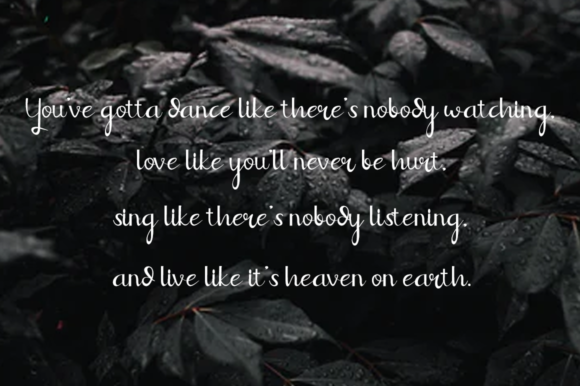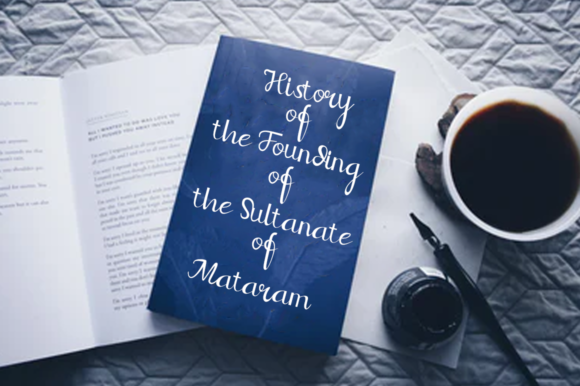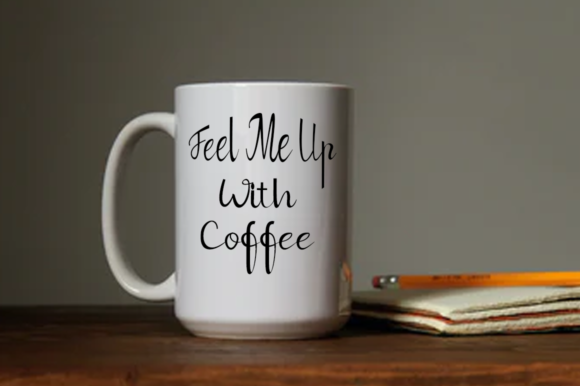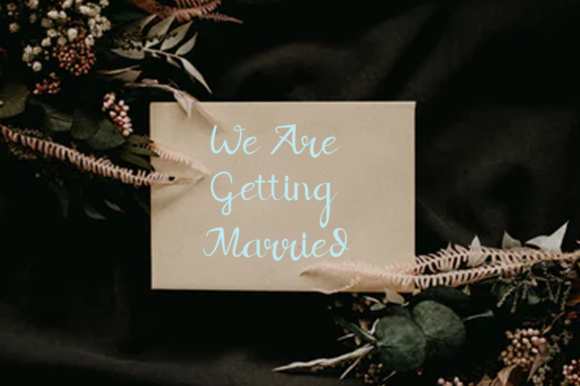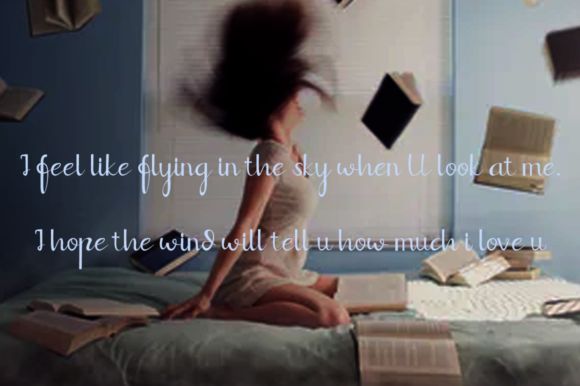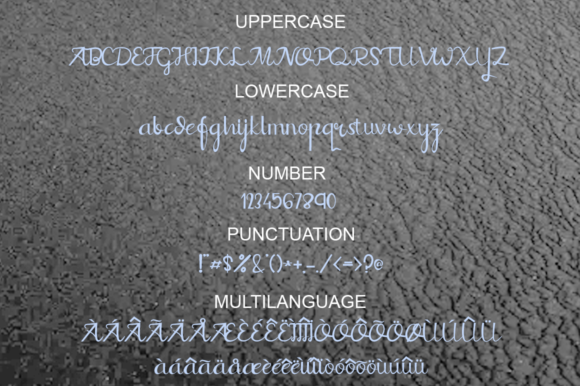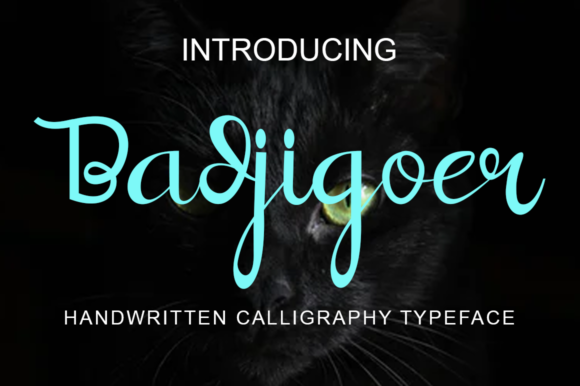
Introducing Badjigoer Font: Elevate Your Designs with Elegance
In the world of typography, a font can make or break the aesthetic appeal of a design project. For crafters, designers, and artists, finding the perfect typeface that conveys elegance and sophistication can be a daunting task. This is where Badjigoer Font comes into play – a delicate and flowing handwritten font that is poised to elevate the beauty of your projects.
The Beauty of Balance: Not Too Thin, Not Too Thick
One of the standout features of Badjigoer Font is its impeccable balance. It’s not too thin, which can often result in a fragile or feeble appearance, nor is it too thick, which can make a design look heavy-handed or overpowering. Instead, Badjigoer strikes the perfect chord, offering a balanced look that is both visually appealing and highly legible.
Variety and Versatility
Badjigoer Font boasts a range of variations, making it a versatile tool for any designer or craftsperson. This variability ensures that your projects don’t have to look uniform or boring. You can play around with different weights, styles, and even mix and match to create a unique visual narrative that captures the essence of your brand or artistic vision.
Designed to Enhance Beauty
The primary goal behind the creation of Badjigoer Font was to enhance the beauty of design projects. Whether you’re working on a branding project, crafting a beautiful stationery set, or designing a website, Badjigoer can add that extra layer of sophistication and elegance. Its flowing and delicate nature makes it perfect for projects that require a touch of grace and refinement.
Badjigoer Font is particularly suited for designers and crafters who are keen on adding a personal touch to their work. For digital artists, graphic designers, and crafters who specialize in paper crafting, scrapbooking, or card making, Badjigoer offers a wide range of creative possibilities. It’s also ideal for anyone working on wedding invitations, event branding, or product packaging that requires a touch of elegance.
Why Choose Badjigoer Font?
• Elegance and Sophistication: Badjigoer brings an unmatched level of elegance and sophistication to any project.
• Legibility: Despite its delicate nature, Badjigoer maintains high legibility, making it suitable for both headings and body text.
• Versatility: With its range of variations, Badjigoer can be used across various design projects, from digital to print.
• Easy to Read: The balanced thickness ensures that the font is easy on the eyes, making it perfect for long reads or detailed information.
Badjigoer Font is more than just a typeface – it’s a design element that can transform your projects with its elegance and versatility. Whether you’re a professional designer or a hobbyist crafter, Badjigoer offers the perfect blend of beauty, legibility, and creativity. By incorporating Badjigoer into your design toolkit, you’re not just choosing a font; you’re elevating the potential of your work to new heights of aesthetic excellence.